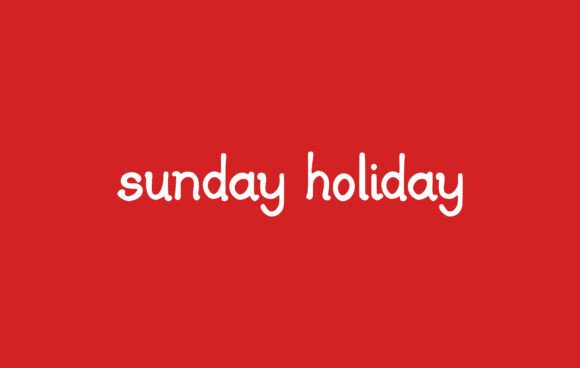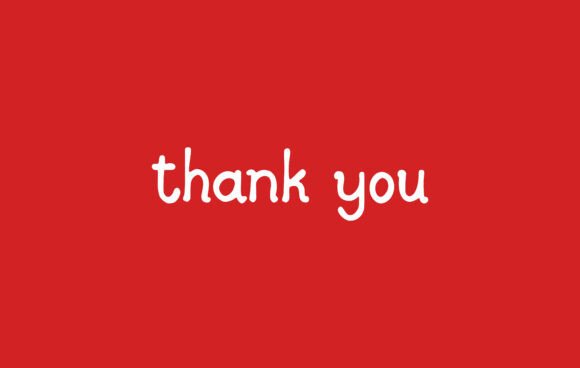
Discover the Charm of Harlee Font: Elevate Your Designs with a Romantic Touch
In the world of typography, a well-crafted font can make all the difference in bringing your creative visions to life. If you’re on the hunt for a typeface that exudes warmth, elegance, and a dash of romance, look no further than the Harlee font. This authentic handwritten font is designed to capture the hearts of designers and crafters alike, offering a versatile and beautiful solution for a wide range of projects.
The Essence of Harlee Font
Harlee font is an expertly designed, authentic handwritten typeface that adds a romantic touch to any design. Its unique charm lies in its ability to convey emotion and personality, making it an excellent choice for projects where you want to leave a lasting impression. Whether you’re working on magazine headlines, social media graphics, branding materials, wedding invitations, or cards, Harlee font is poised to become your new favorite companion.
Why Choose Harlee Font?
So, what sets Harlee font apart from other typefaces? Here are a few compelling reasons why designers and crafters are falling in love with this beautiful font:
- Legibility and Versatility: Harlee font boasts excellent legibility, making it suitable for use as both title and body text. This versatility is a significant advantage, as it allows you to maintain a consistent aesthetic across various design elements.
- Romantic and Elegant: The romantic touch infused in Harlee font makes it an ideal choice for designs that require a touch of sophistication and warmth. From wedding-related projects to branding and advertising, this font adds a layer of emotional connection.
- Wide Range of Applications: The adaptability of Harlee font is one of its most significant strengths. It can be used in a multitude of design projects, including but not limited to:
- Magazine headlines and articles
- Branding materials, such as logos and brochures
- Wedding invitations, cards, and stationery
Tips for Using Harlee Font Effectively
To make the most of Harlee font, consider the following tips:
- Mix and Match: Don’t be afraid to experiment with different sizes, colors, and styles to create visual hierarchy and add depth to your designs.
- Play with Colors: The romantic essence of Harlee font can be further emphasized by choosing a color palette that complements its warm and elegant feel. Soft pastels, rich jewel tones, or classic black and white can all produce stunning results.
Harlee font is more than just a typeface; it’s a design companion that can elevate your creative projects to new heights. Its unique blend of authenticity, legibility, and romance makes it an indispensable tool for designers and crafters seeking to infuse their work with a personal touch. Whether you’re aiming to create stunning magazine headlines, captivating social media content, or beautiful wedding invitations, Harlee font is sure to become a favorite in your design arsenal.